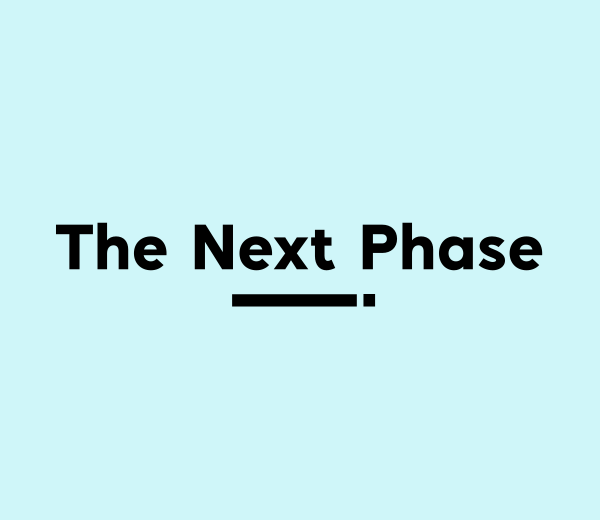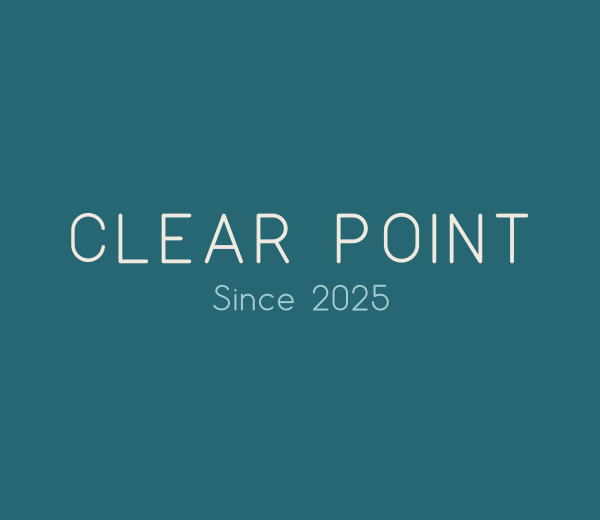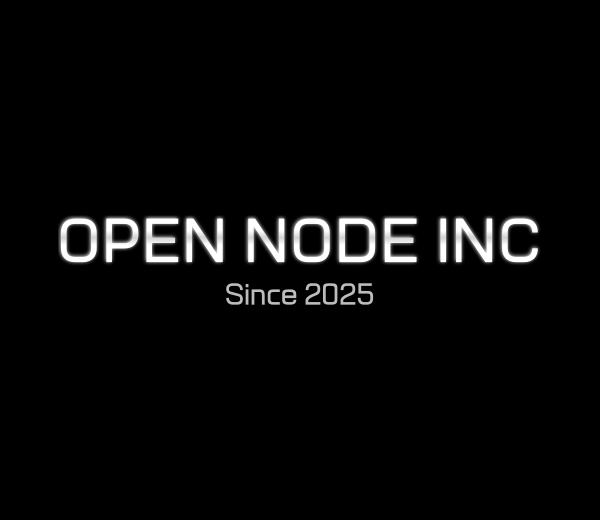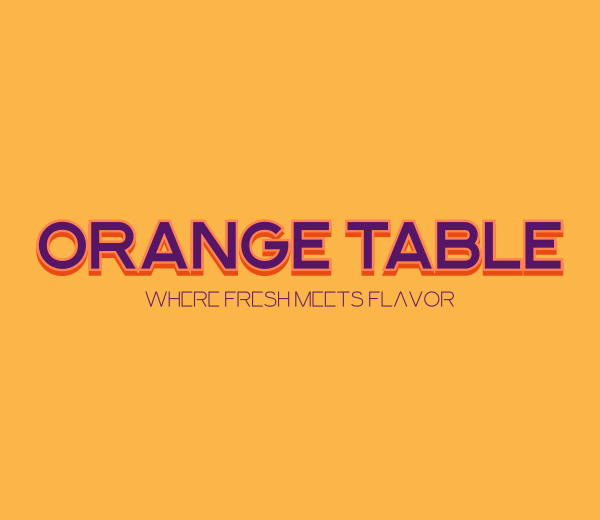
The Benefits of Using Custom Fonts for Your Brand
If you’re a small business owner in 2025, chances are you’ve already noticed how much design matters. Every little detail counts, from your website to your packaging to your Instagram stories, even your fonts.
More small businesses than ever are investing in custom or modified fonts to help stand out. The font market has become a multibillion-dollar industry, and even smaller brands are now spending around $300 a year on licensing. Why? Because fonts are a part of your brand’s voice.
In addition to using a logo maker to craft your unique brand face, a custom font or a mix of wise font choices can help build recognition, emotional connection, and trust with your audience. And the best part? It doesn’t have to break the bank.
Why Custom Fonts Elevate Your Brand
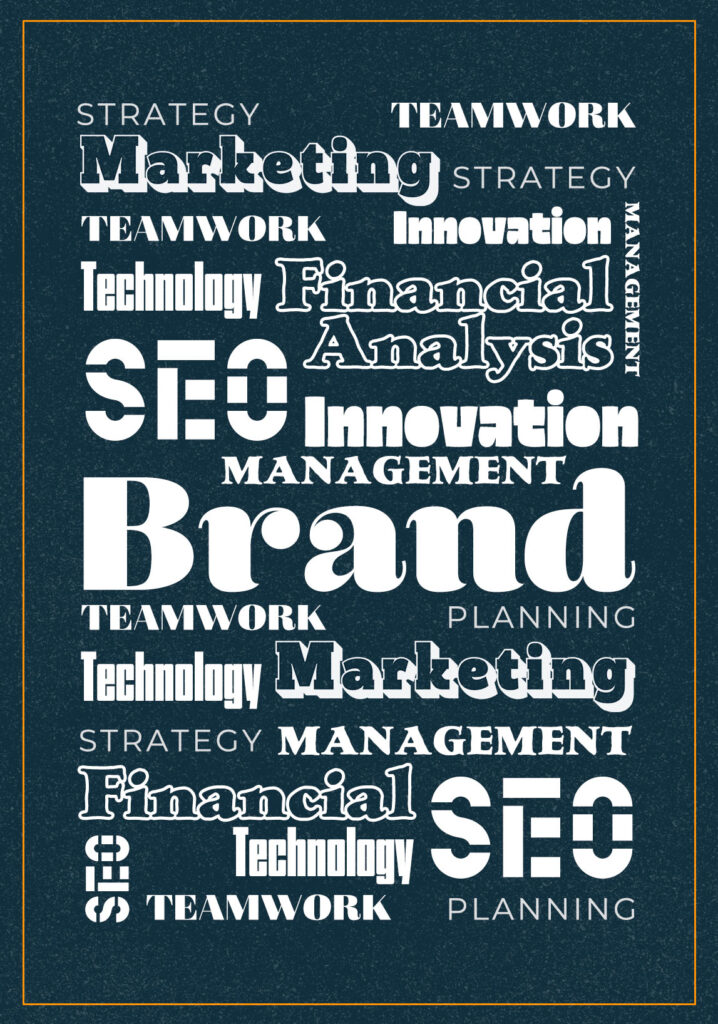
Here’s why custom fonts are a game-changer for your brand:
Uniqueness and recognition
When you use a custom font, you’re creating something unique to your brand. Think about companies like Netflix or Airbnb. Their fonts are recognizable even without the logo.
Custom fonts can boost brand recognition by up to 80%. That means when someone sees your content, they’re more likely to remember and connect it to you.
Consistency across touchpoints
A custom font helps keep your brand consistent everywhere. Using the same font, from your website and emails to your product packaging and store signage, helps everything feel connected.
Consistency builds trust. If your branding looks the same wherever people see it, they’ll start to see you as more professional and reliable.
Emotional tone and trust
Fonts also speak in their own way. A serif font can feel formal or traditional. A rounded sans-serif might feel friendly and casual. The font you choose sets the tone before people even read the words.
By choosing a font that matches your brand’s personality, you shape how people feel about your business, and that builds trust.
5 Affordable Custom Font Approaches
You don’t need a huge budget to get a font that works. Here are five ways to get that custom look at different price points:
1. Full custom typeface
If you want something unique, you can work with a designer to create a font from scratch. This is the most expensive option, usually starting around $2,000, but you get full ownership and total control over how it looks and feels.
2. Modified existing fonts
A popular mid-range option is to take an open-license font and have a designer tweak it. Adjust the curves, spacing, or certain letters to give it a personal touch. This approach typically costs between $200 and $2,000 and still gives you a unique font without starting from scratch.
3. Hybrid strategy
This is an innovative and affordable method: use a premium or custom font just for your logo or headlines, and pair it with a free font for body text. It adds personality where it counts, while keeping costs low.
4. Free and open-source fonts
If your budget is tight, start with free fonts. Google Fonts, Fontshare, and other open-source libraries offer high-quality fonts without licensing fees. Many of these fonts are professional-grade and flexible enough for most branding needs.
5. Font subscription services
If you want access to a wide variety of premium fonts without the high upfront cost, font subscription platforms like Adobe Fonts or Monotype’s services can be a good option. You pay a monthly or yearly fee (often under $200/year) and get access to thousands of fonts, including many used by top brands.
Typography Trends to Watch in 2025
The way we use fonts keeps evolving. Here are the top font trends of 2025 worth knowing:
Variable fonts for flexibility
Variable fonts are becoming more popular because they pack multiple styles into one file. Instead of loading separate files for bold, italic, and regular text, you get everything in one place. This makes your website load faster and run smoothly.
They’re also great for responsive design. You can easily adjust the weight or width of the font depending on the screen size, which helps keep your brand looking good on both mobile and desktop.
Maximalist and bold typography
Big, bold fonts are making a strong comeback. These oversized letters are meant to grab attention right away. You’ll see them used on websites, ads, posters, and social media graphics.
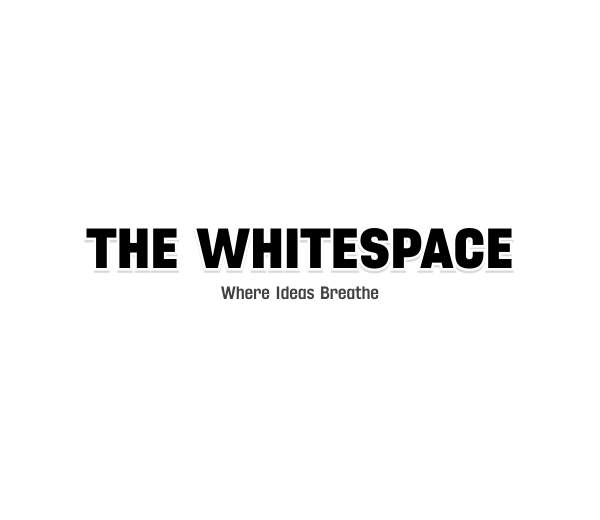
Simple Bold Brand by Design.com (Forge BC)
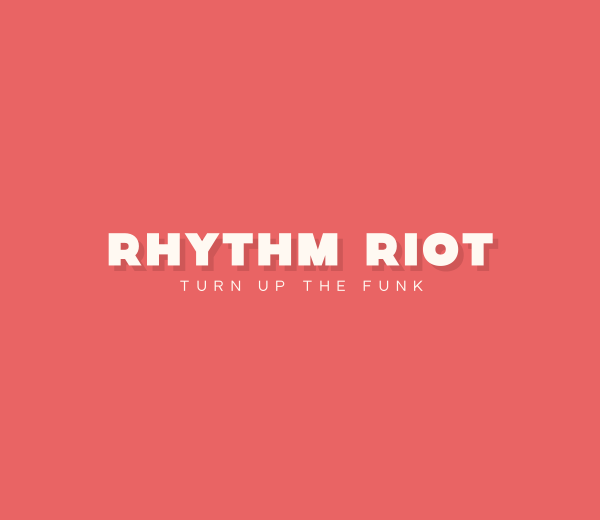
Funky Bold Text by BrandCrowd (Soho BC)
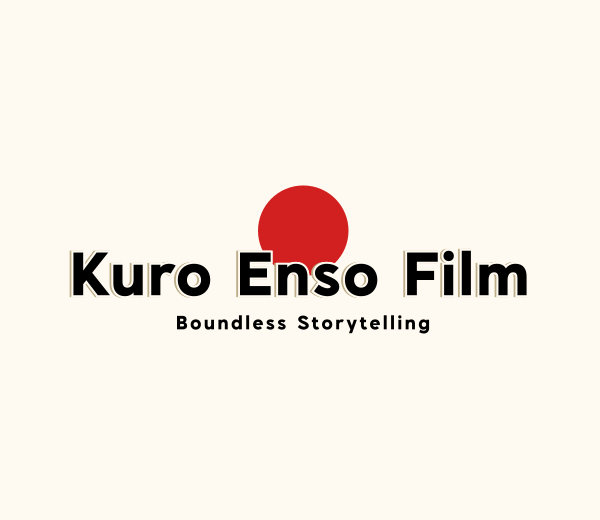
Circle Media Studio by Design.com (Propono BC)
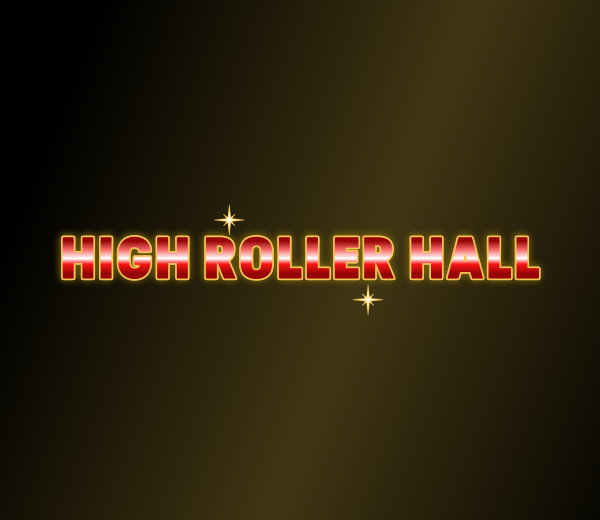
Luxury Premium Casino by BrandCrowd (Cayote BC)
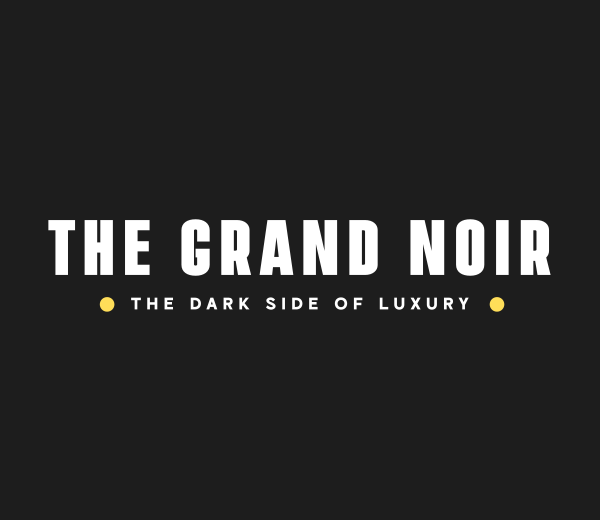
Bold Minimalist Simple by Design.com (Manhattan BC)
They work best when paired with simple layouts or lots of white space. Bold typography adds drama and emotion, making your message more memorable and helping your brand stand out.
Accessibility-focused fonts